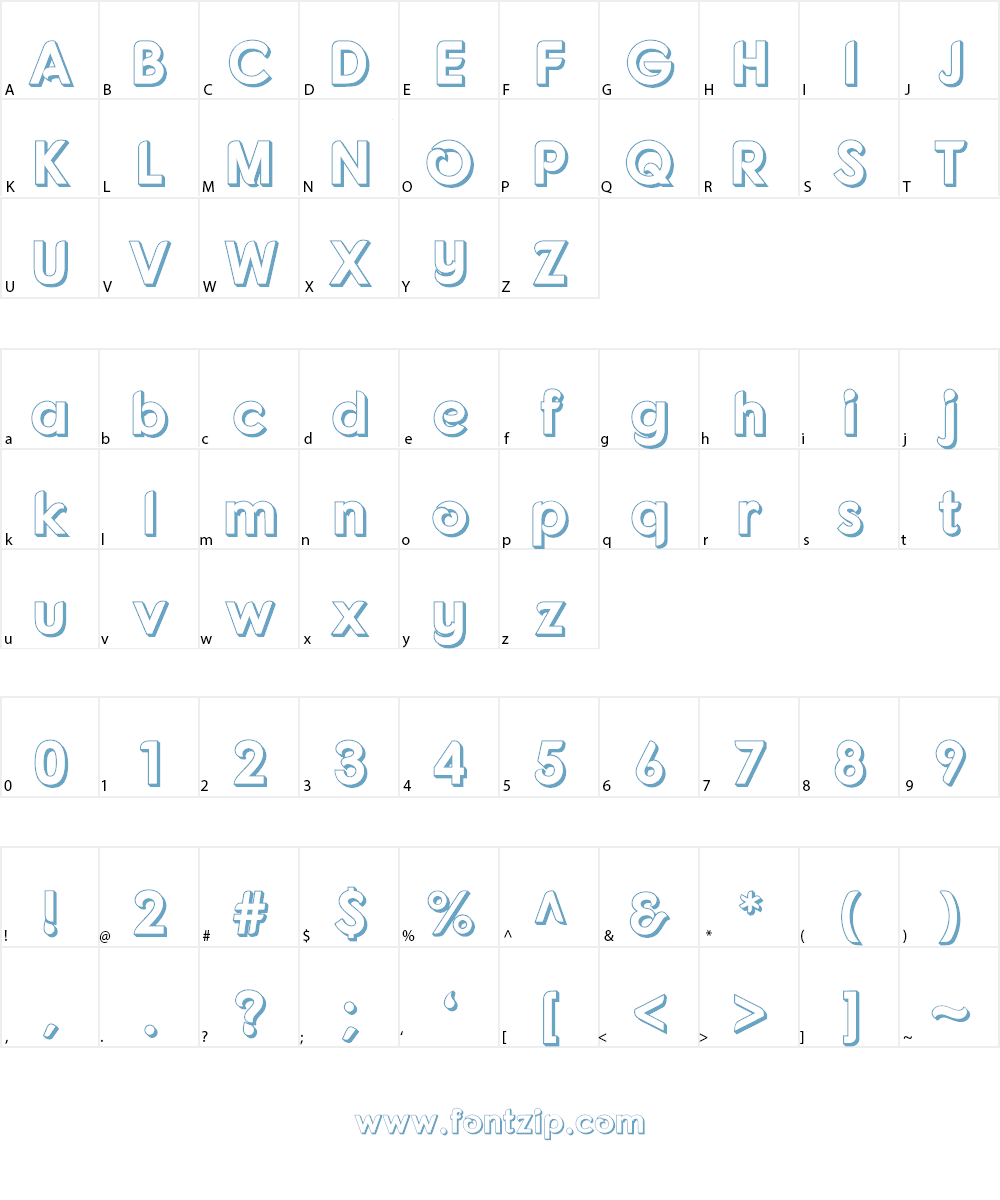
Fonarto is a sans serif font that is combined with classic shape in some parts. It makes Fonarto has a modern style with classic impression. Available in two version, regular and XT style.